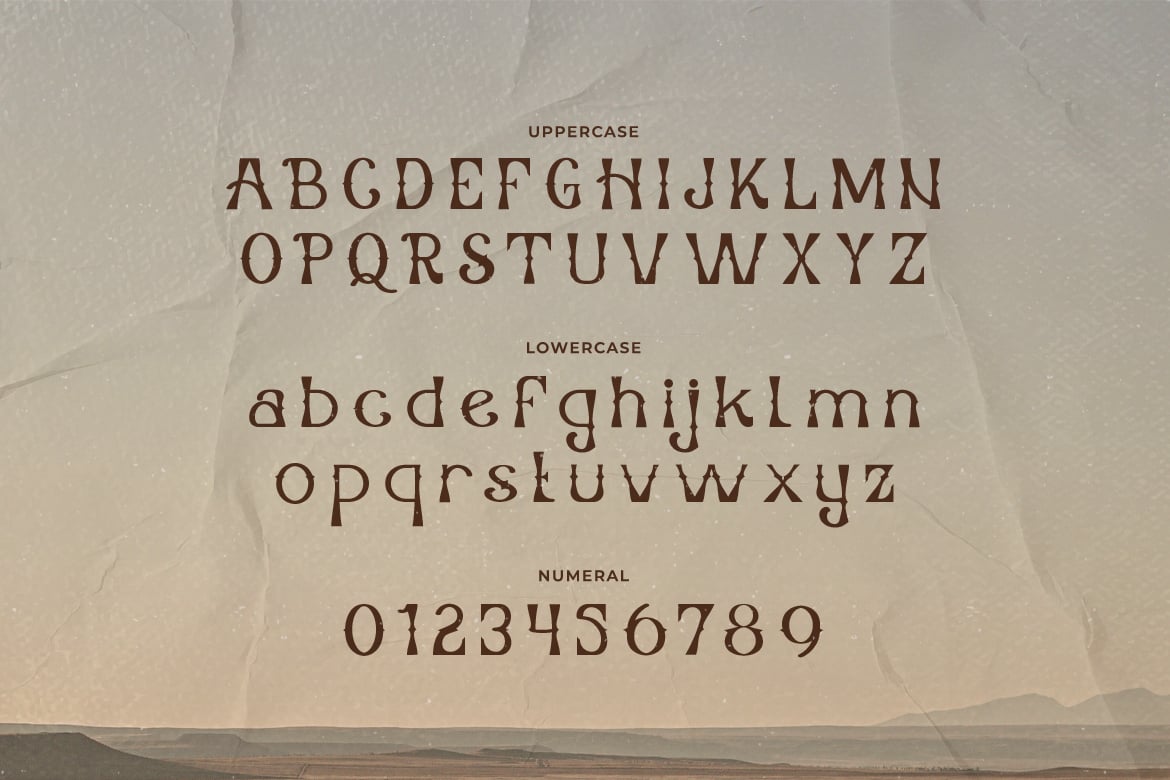
Western of Dead – Western Display Typeface
Western Of Dead is a western looking display font.
Whether you are using it for retro or grunge-related designs, children’s games, quotes, titles, brand names, book covers, posters, or just any creation that requires a touch of beauty, this font is a great choice.